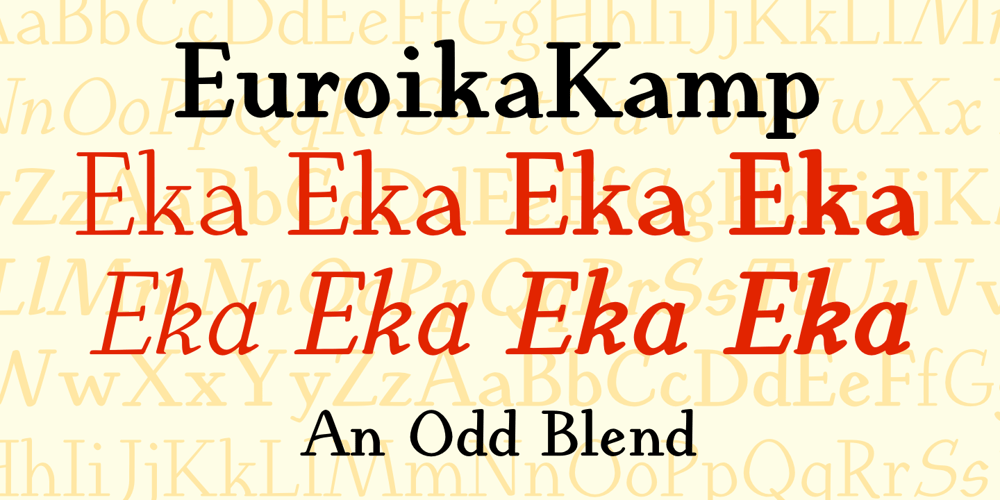
Euroika Kamp Font Family was designed by Robert Schenk and published by Ingrimayne Type. Euroika Kamp contains 8 styles and family package options. Font editors allow one to blend fonts, that is, to take two different fonts and create a new one by averaging the two source fonts. This feature is responsible for the many different weights that come with some modern typefaces. It can also be used to blend completely different fonts, though these blends will require a lot of cleaning and correcting to make them useable. EuroikaKamp began as a blend of two vastly different faces: Euroika, a face with a lot of contrast, straight lines, and smooth curves, and KampFriendship, a hand drawn serif that is almost mono linear. The result is an odd, quirky face that may be useful when one wants a very readable font without the precision and formality of a standard text font.